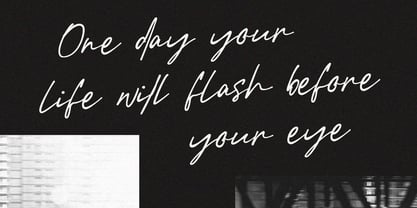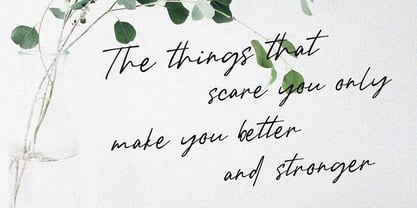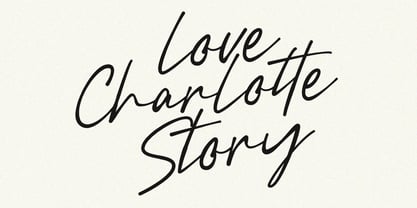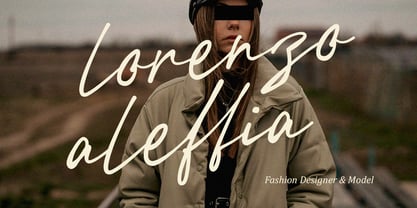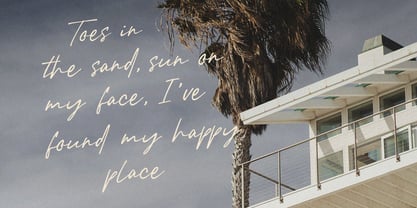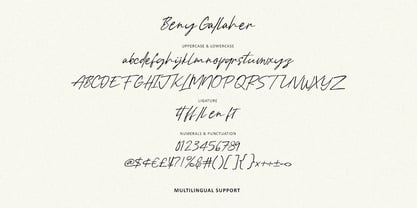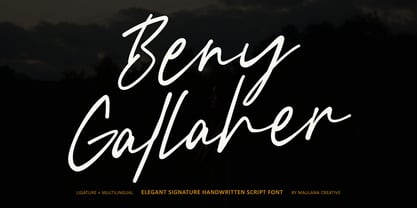
MC Beny Gallaher
by Maulana Creative
The MC Beny Gallaher Font Family was designed by Gilang Maulana and published by Maulana Creative. MC Beny Gallaher contains 1 styles. More about this family
Introduce Beny Gallaher, an exquisite handwritten script font designed to bring a touch of elegance and effortless style to your projects. With its fluid, natural strokes and sophisticated "signature" feel, this font captures the essence of authentic handwriting. Beny Gallaher is perfect for high-end branding, wedding invitations, luxury logos, social media quotes, and editorial designs. It features a comprehensive set of ligatures and multilingual support, ensuring your typography looks seamless and professional in various languages.
Designers: Gilang Maulana
Foundry: Maulana Creative